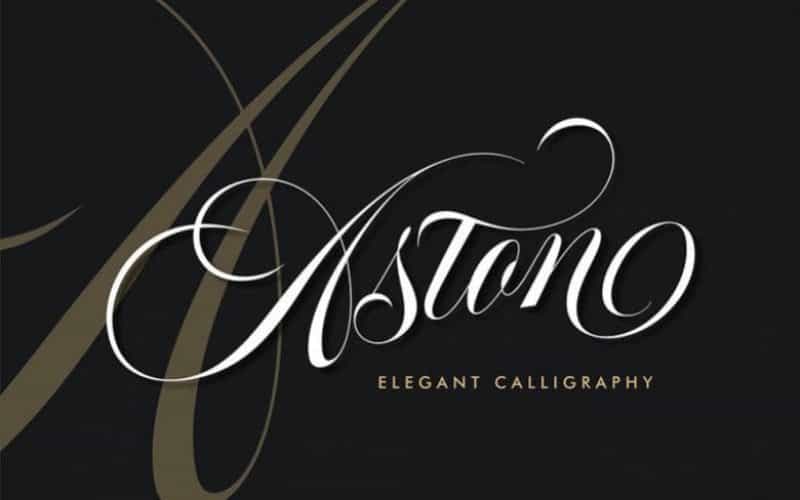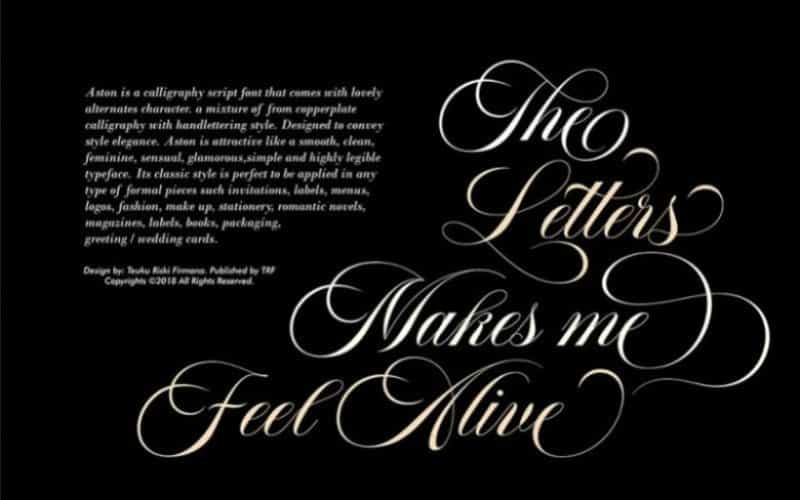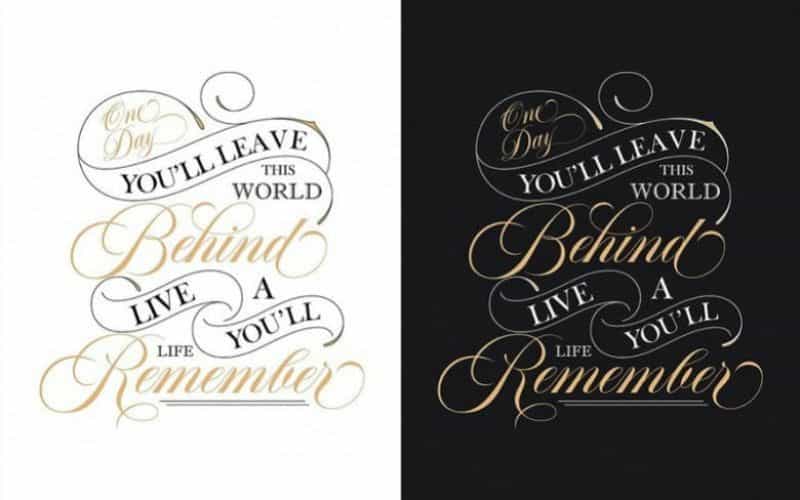
Aston Script is a calligraphy script font that comes with very beautiful changing characters, a kind of classic decorative copper script with a modern touch, designed with high detail. Aston Script is attractive as a typeface smooth, clean, feminine, sensual, glamorous, simple and very easy to read, because there are many fancy letter connection.